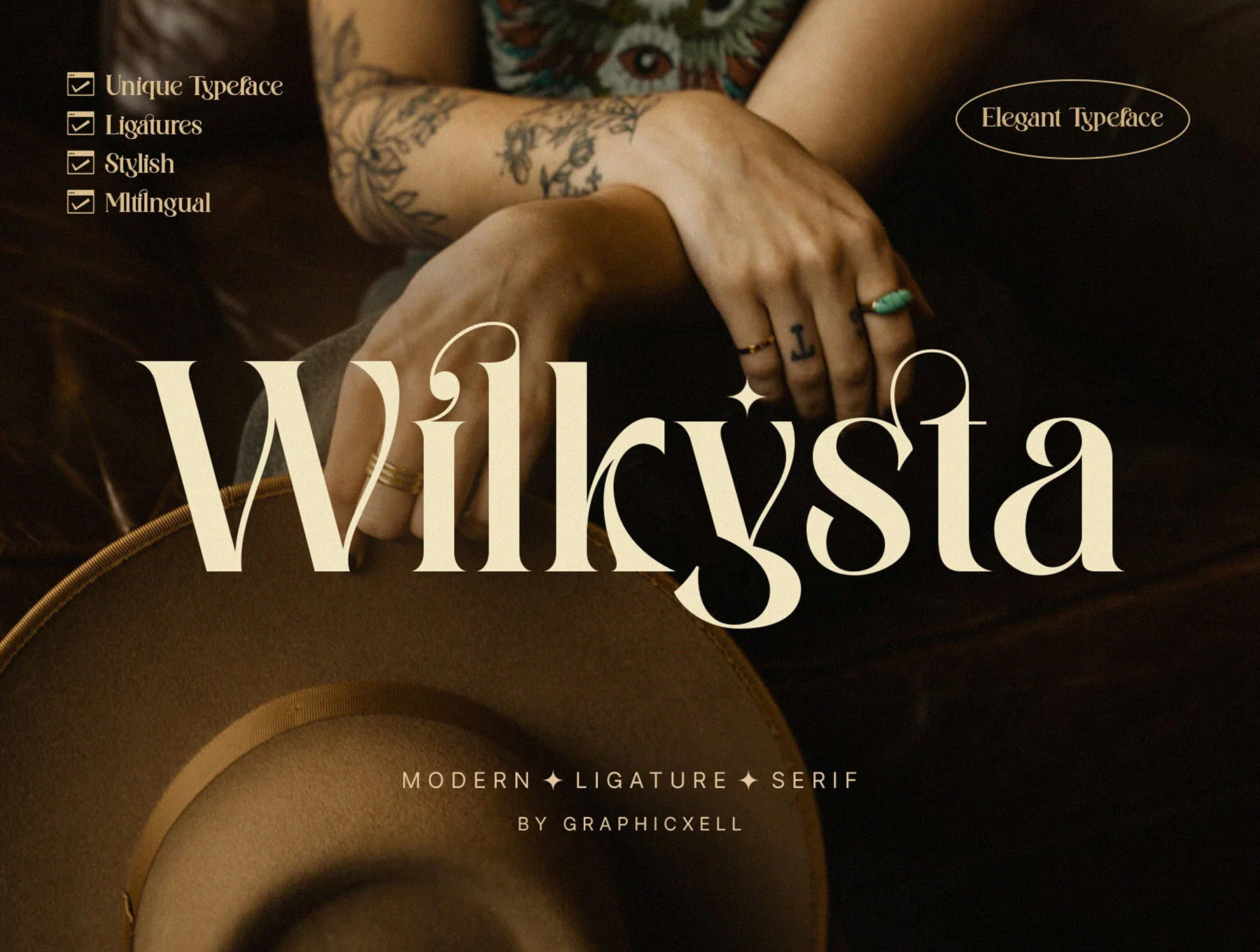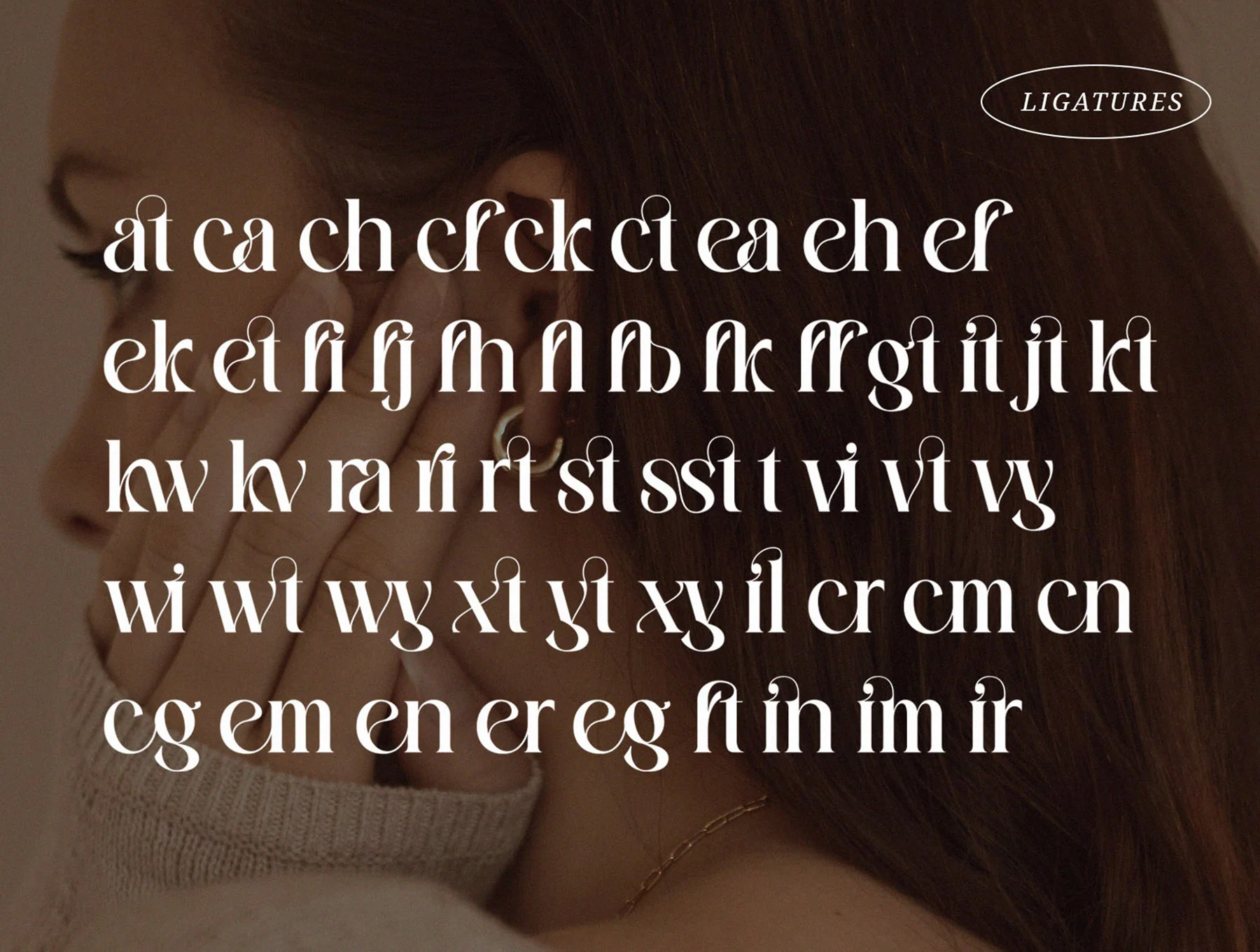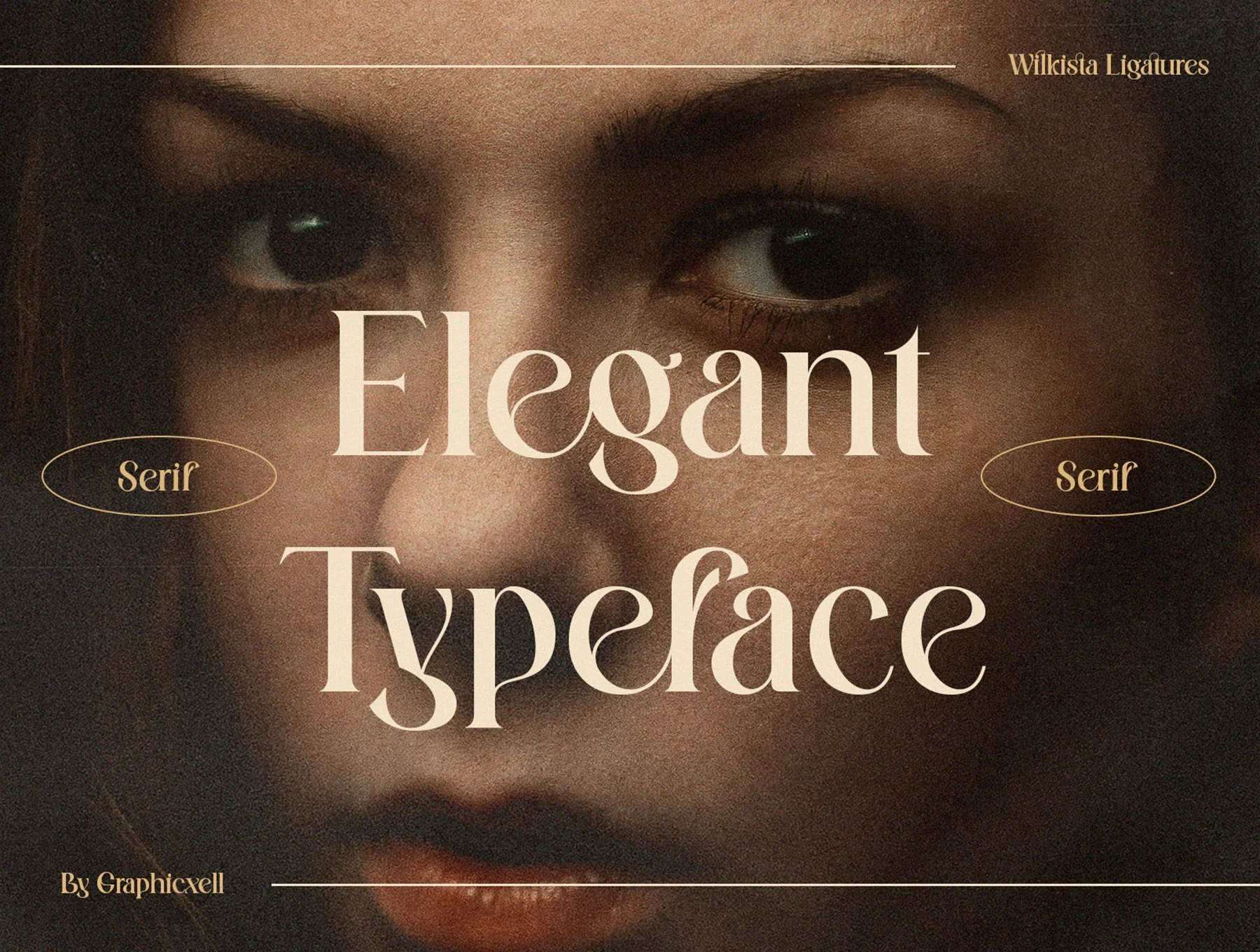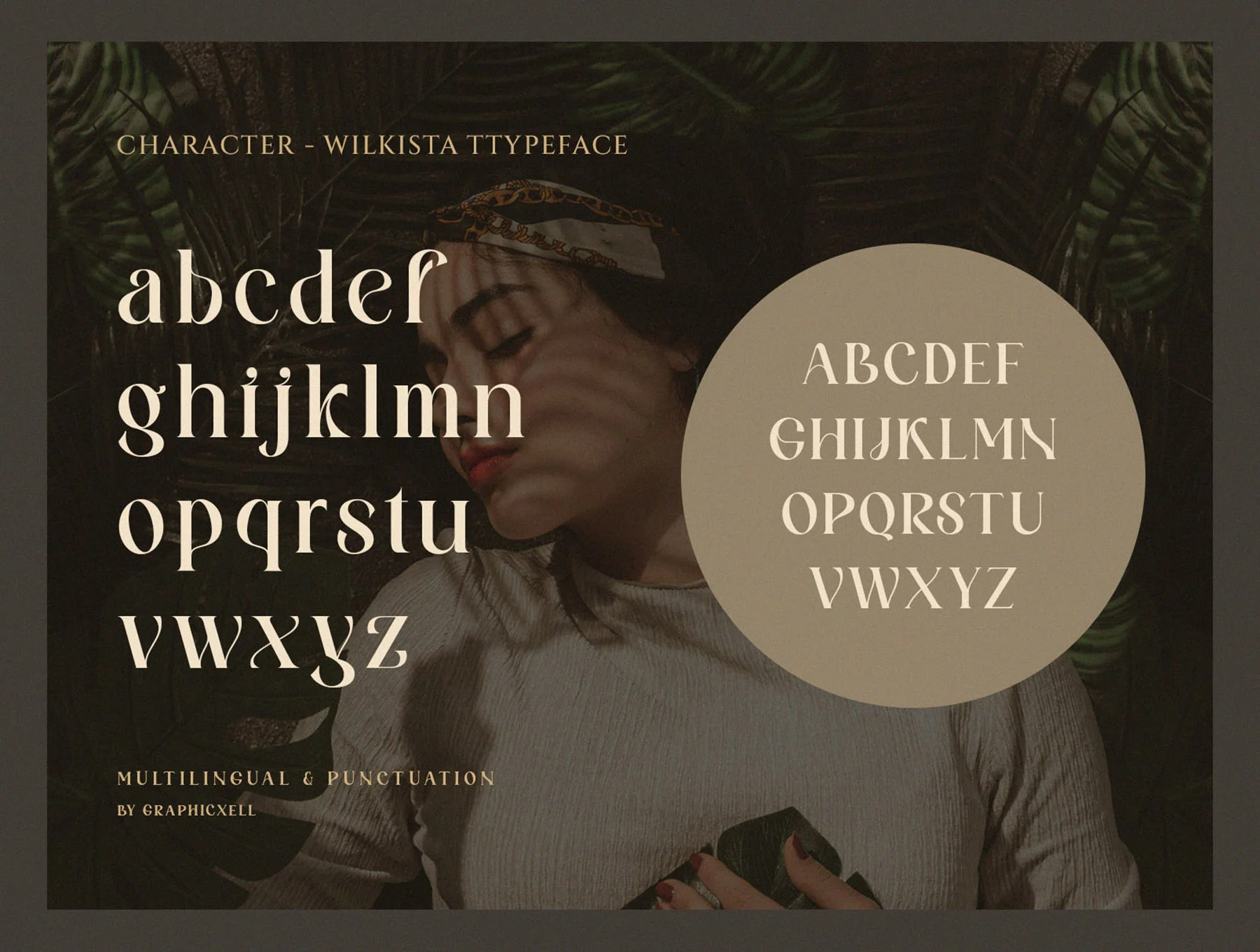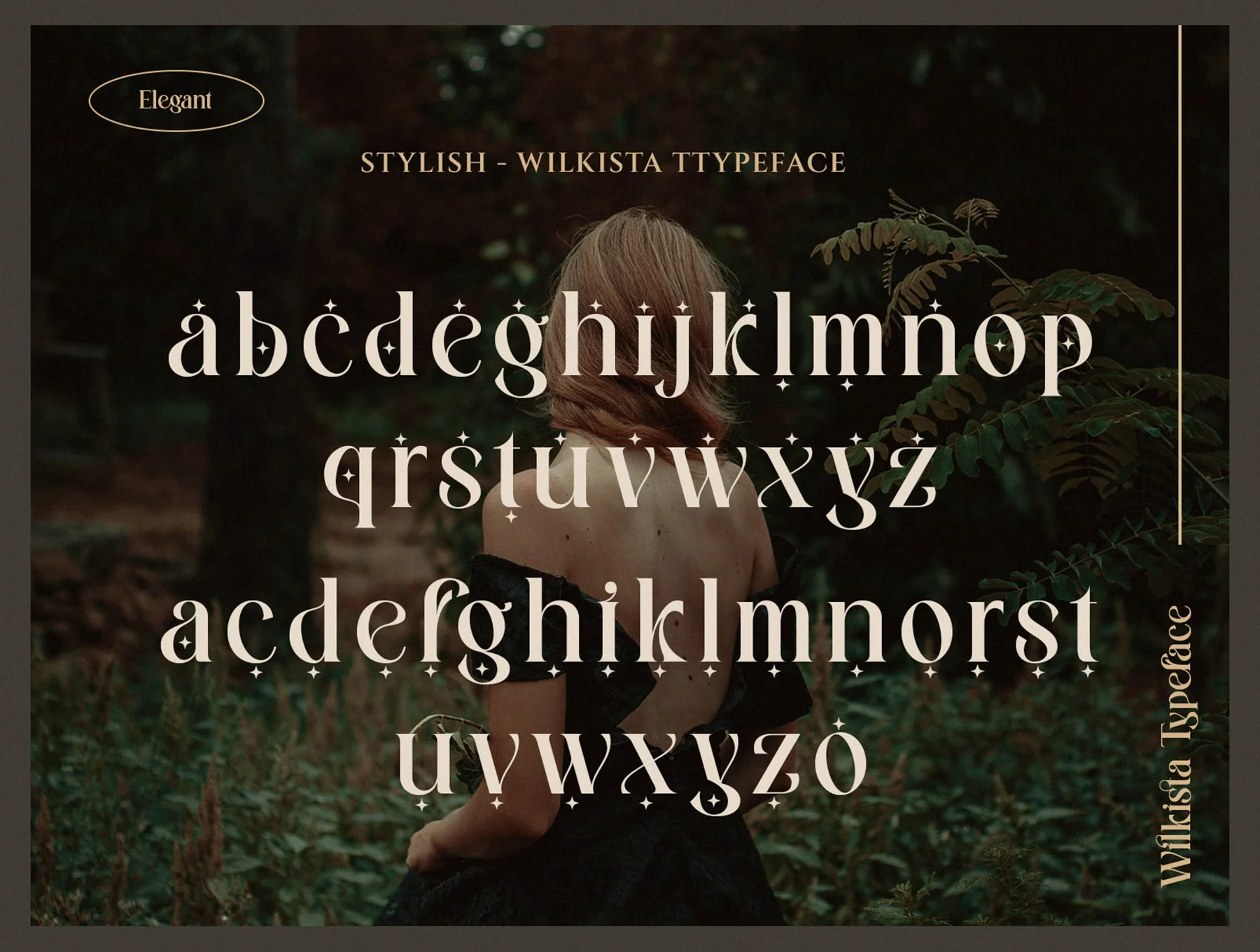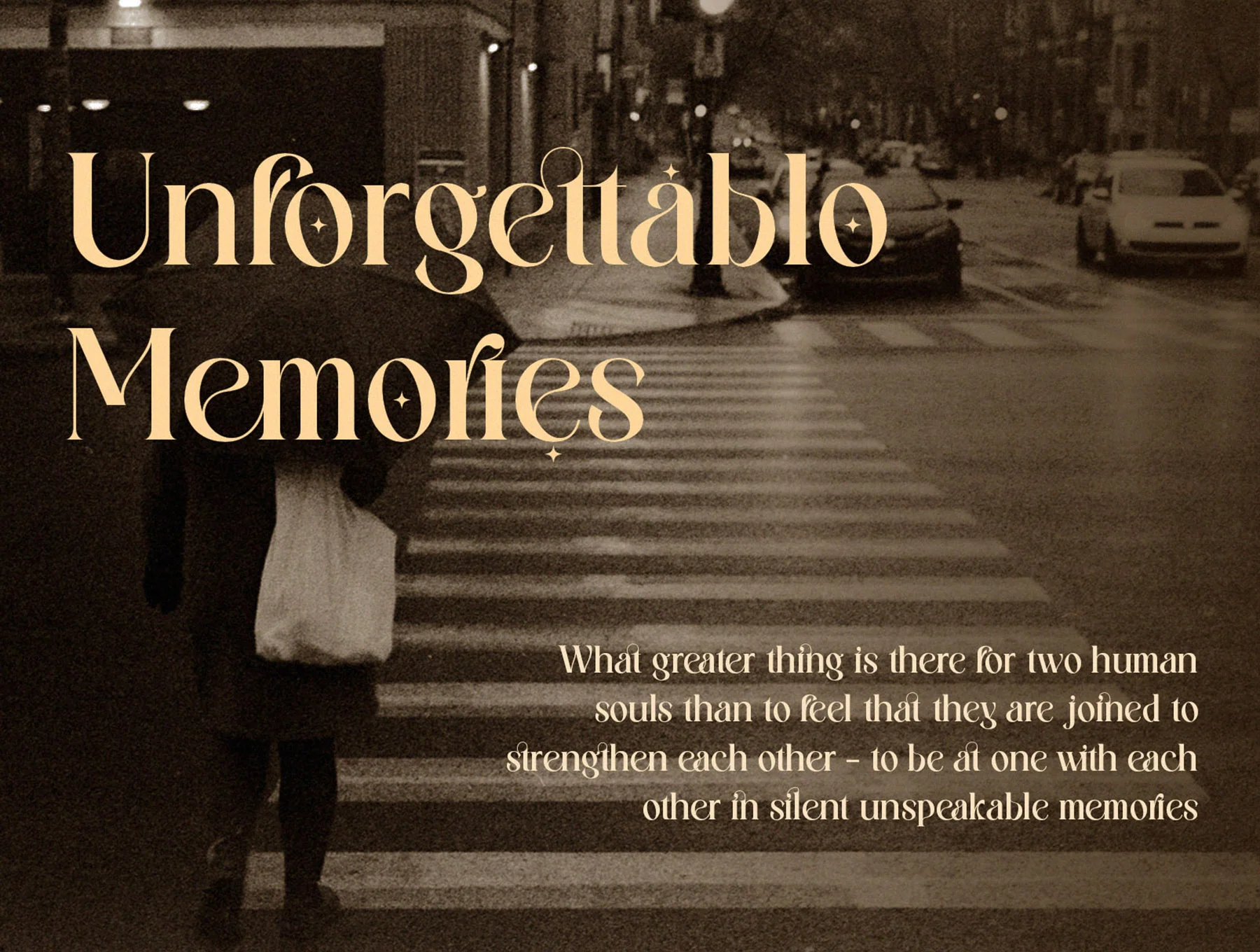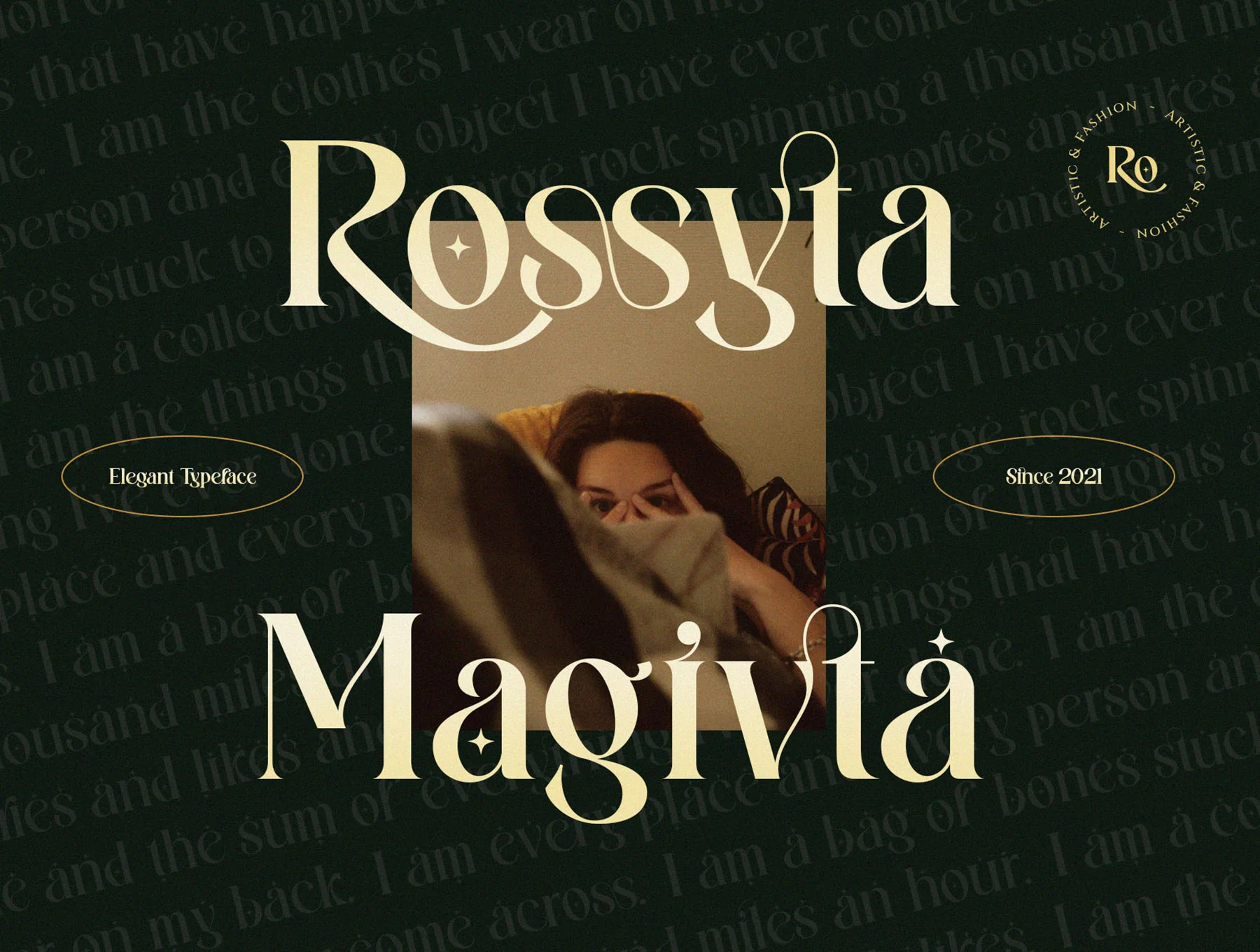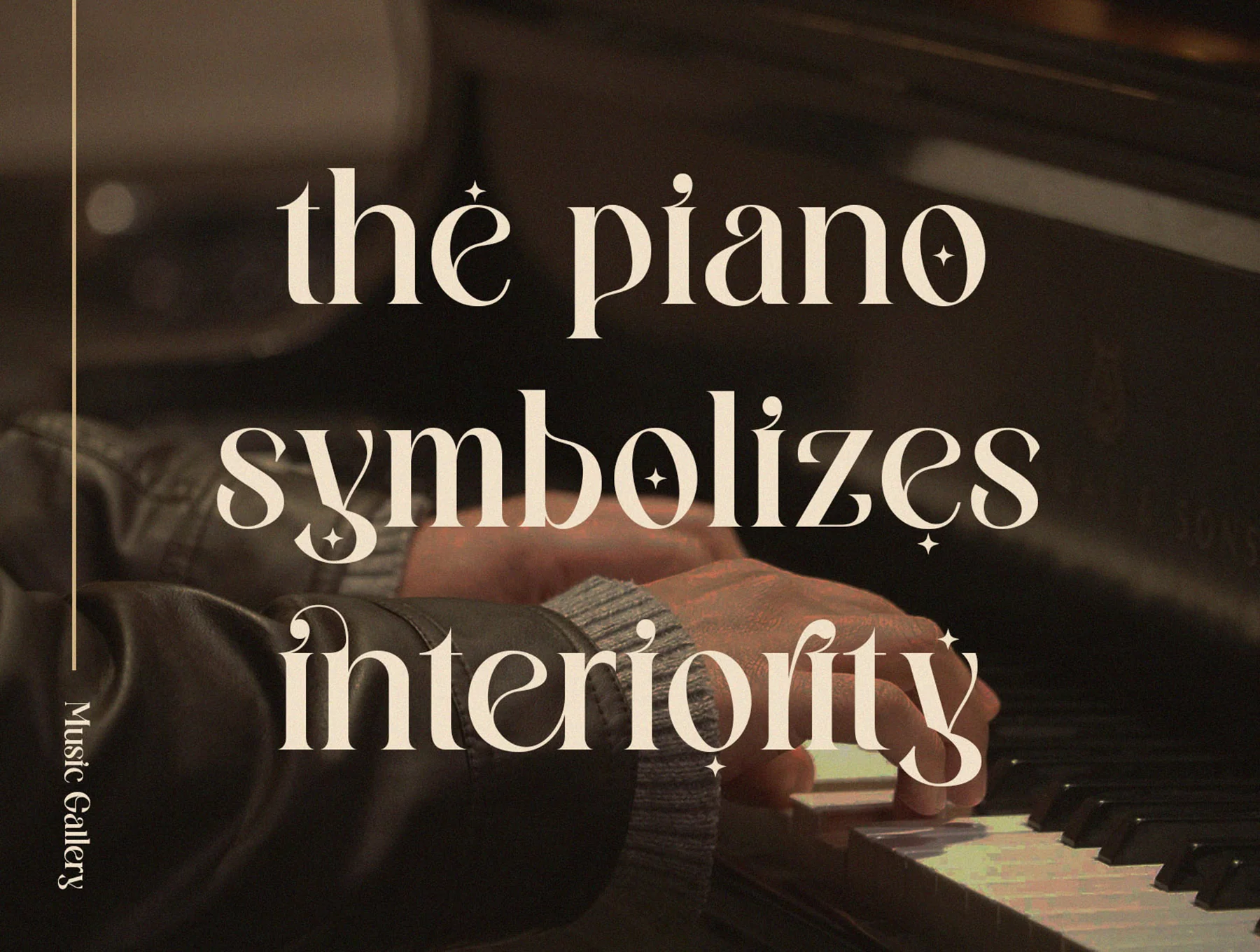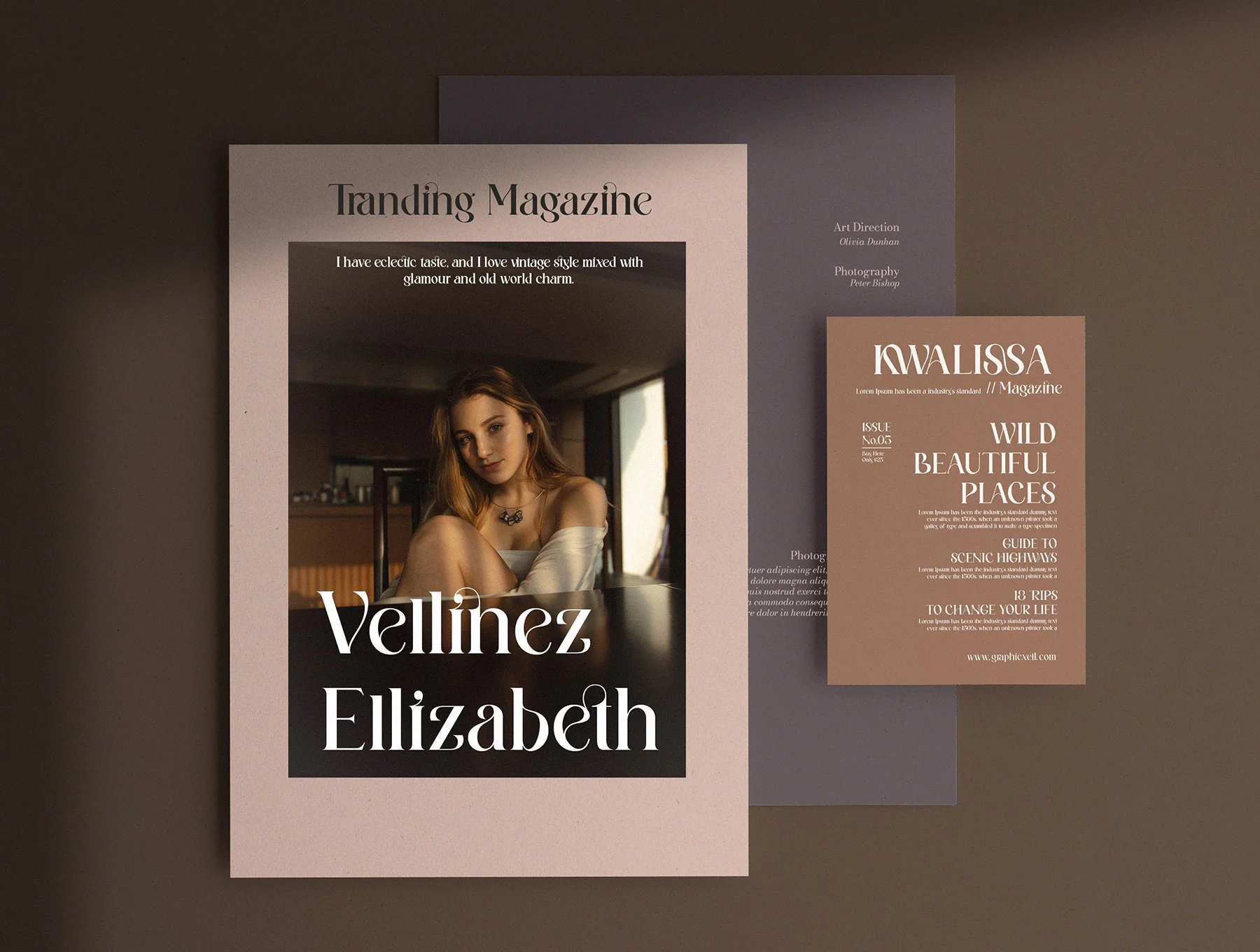
Wilkista - Stylish Ligature Typeface
Elegant ligature font
Complete uppercase and lowercase alphabet
Contemporary and stylish
Multilingual glyphs, numbers, and punctuation
Wilkista is a sleek ligature typeface inspired by iconic minimalist logos, ideal for templates, brochures, videos, ads, branding, logos, and more. Includes OTF/TTF files, web font, standard glyphs, ligatures, accents, multilingual support, PC/Mac compatibility, easy setup, Adobe and Word access, plus PUA encoding.